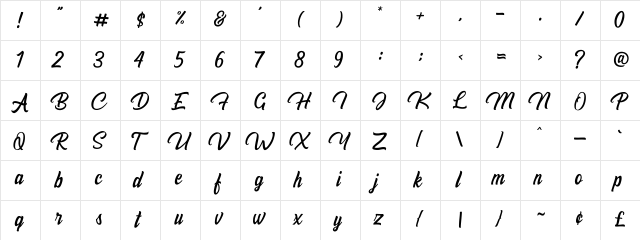
BillyanaPersonalUseOnly Regular
| Foundry | Jimtype Studio |
| Designer | Jamaludin @JimtypeStudio |
Design Context for BillyanaPersonalUseOnly Typeface
BillyanaPersonalUseOnly is a composed and adaptable typeface that performs quietly and consistently across a wide range of design contexts.